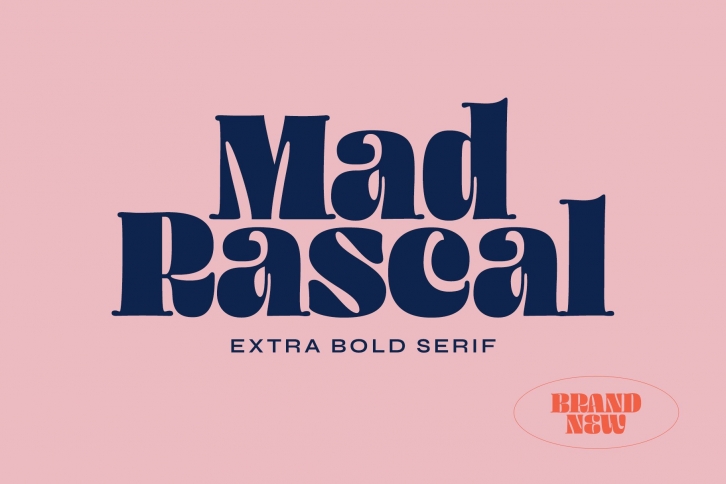
Mad Rascal is an extra bold display font with a large and soft inktrap. It’s ready to make a lasting impression on your merchandise, quote designs, header text, logos and branding, advertisements, and much more.